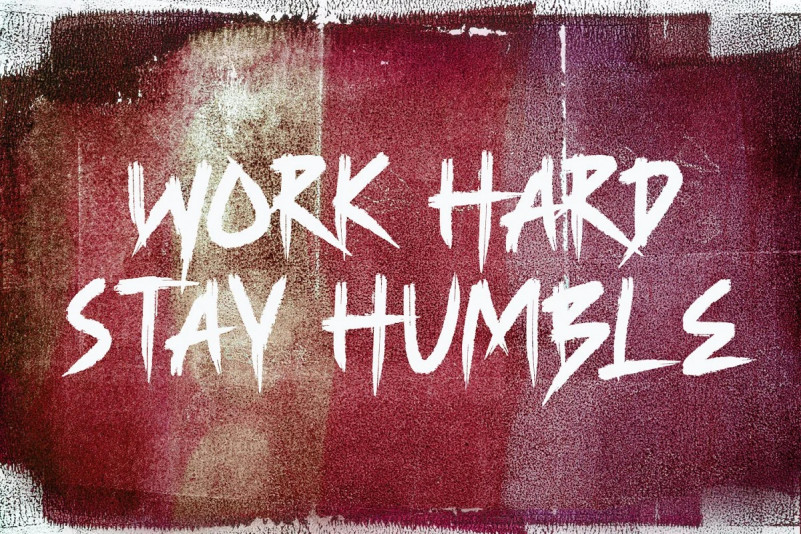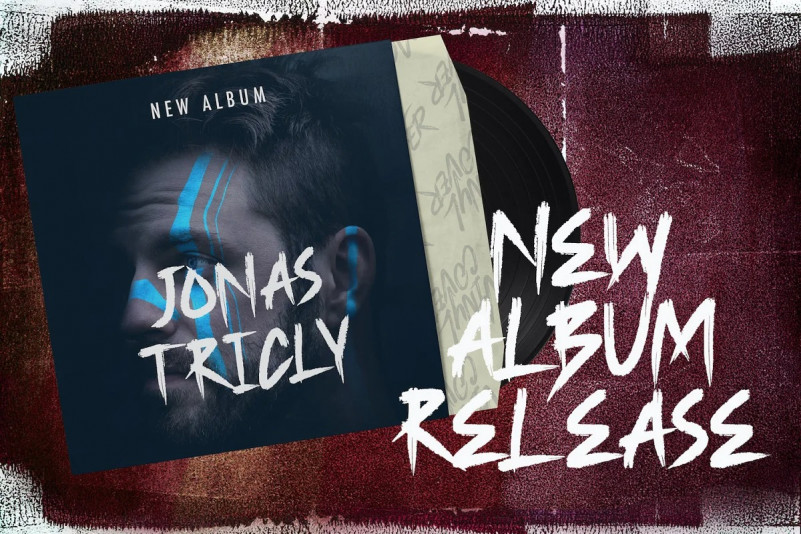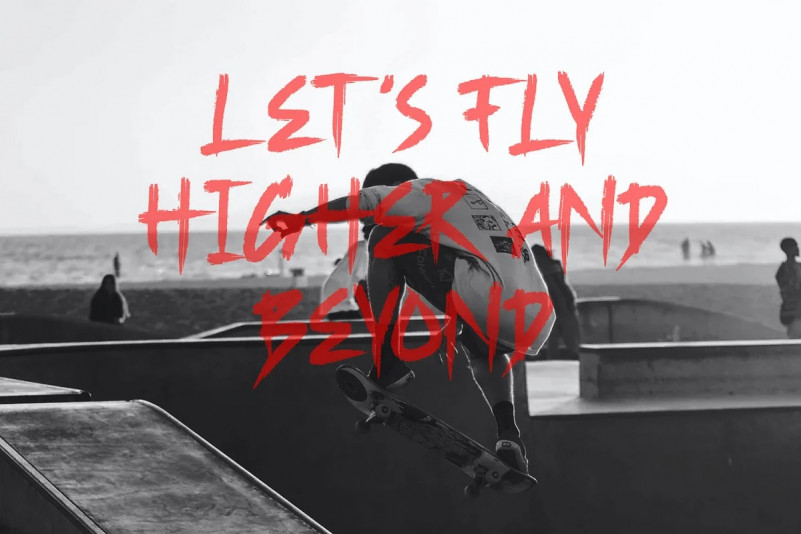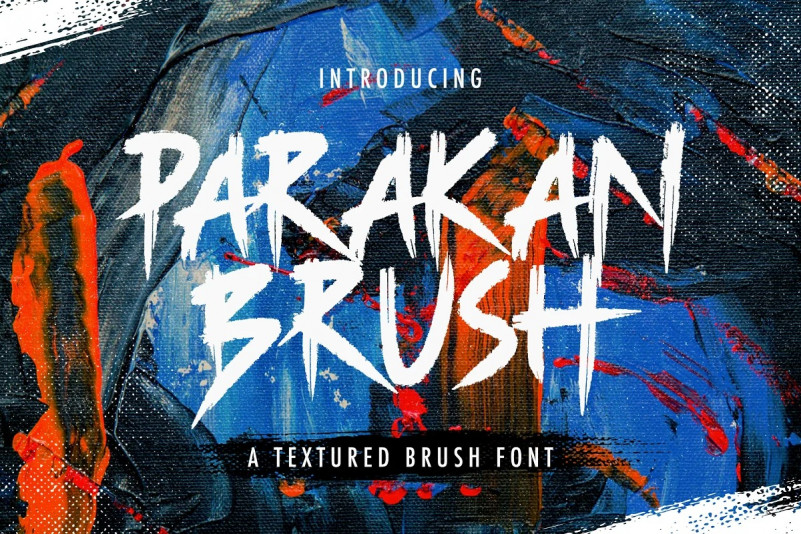
Parakan Brush Font
This is a chunky and bold display font featuring subtle brush-strokes for a friendly feel. It’s designed and shared by StringLabs. Fall in love with its incredibly versatile style and use it to create spectacular designs!